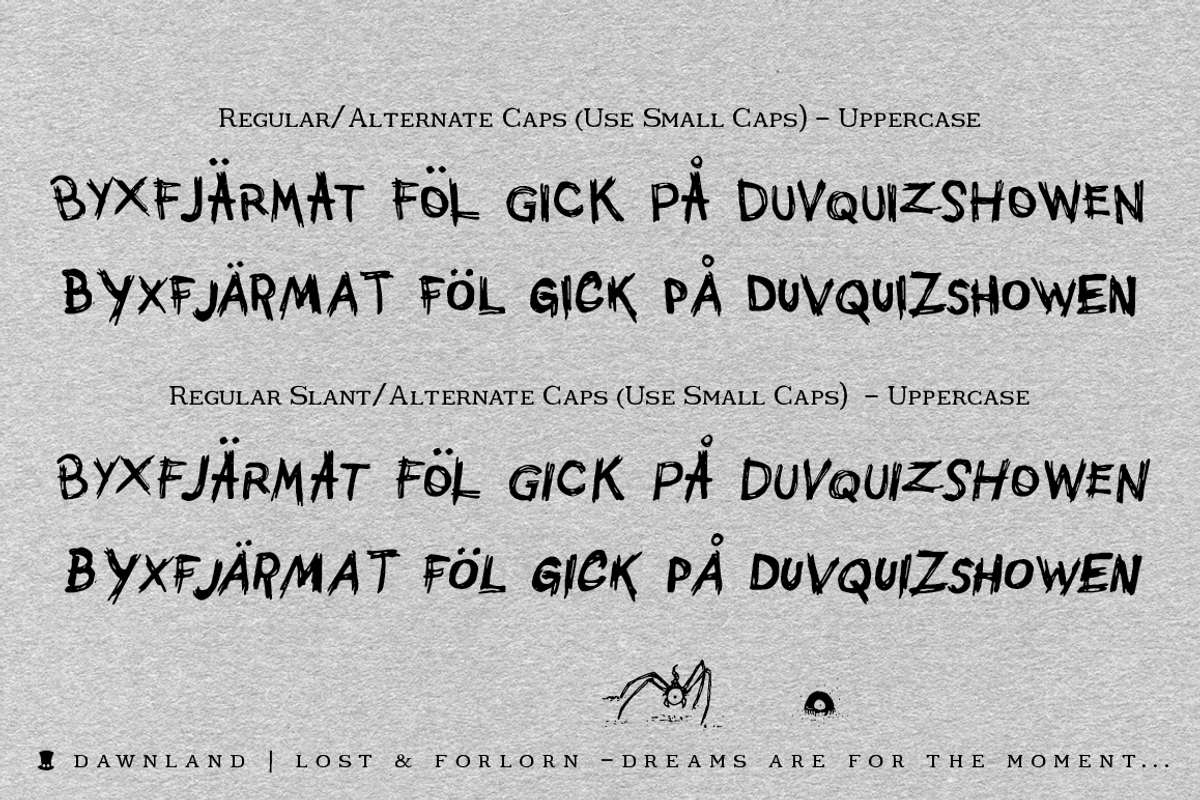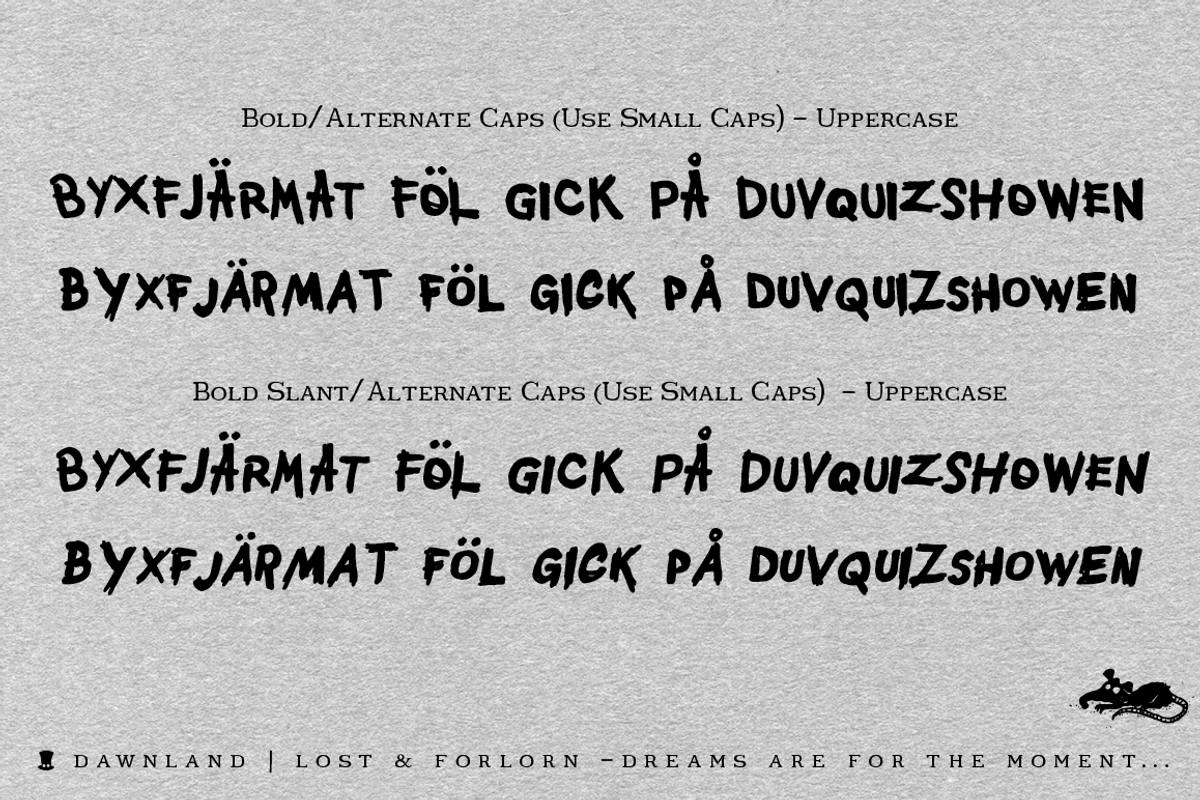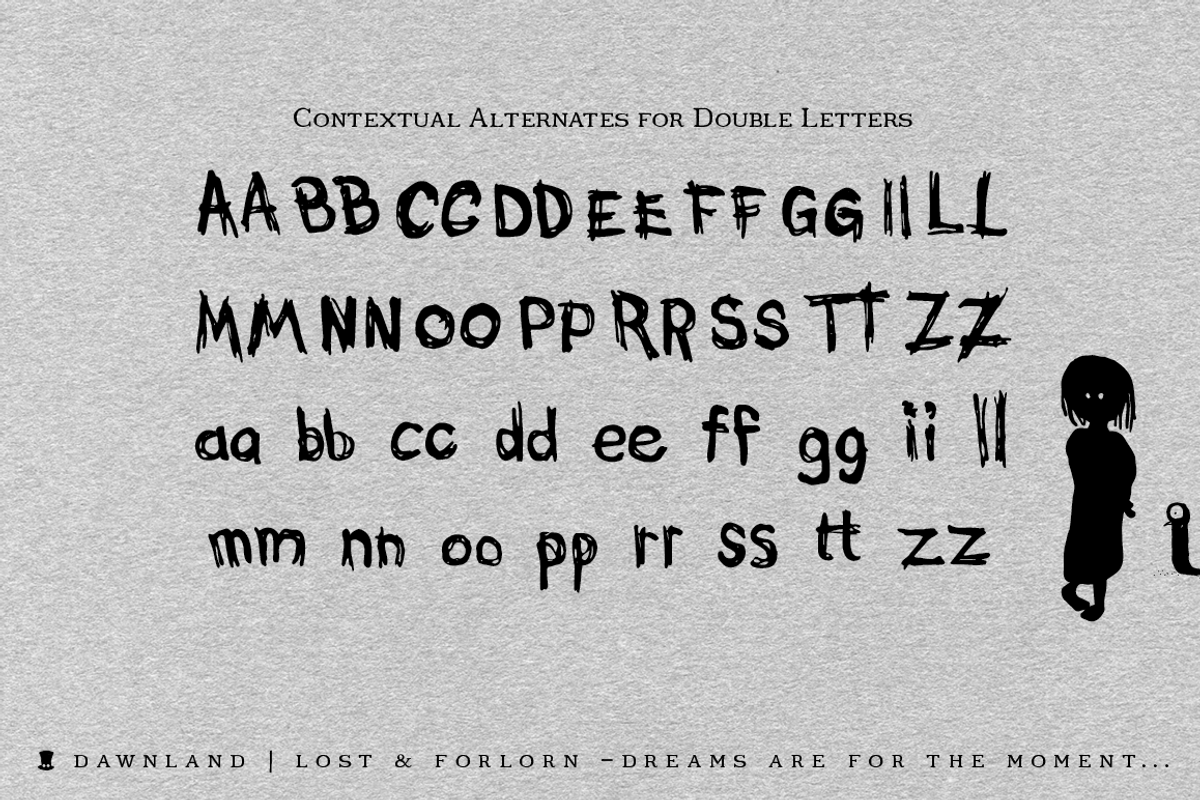
Lost & Forlorn - Complete, 4 fonts
- 444 Glyphs with alternate caps using the Small Caps feature and double letters for a varied handwritten look.
- Lost... Regular
- Lost... Bold
- Lost... Bold Slant
- Lost... slant